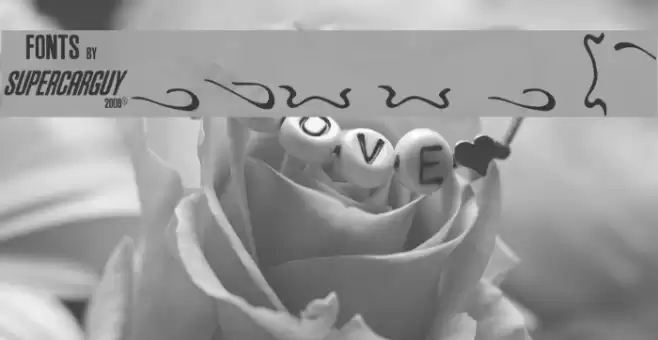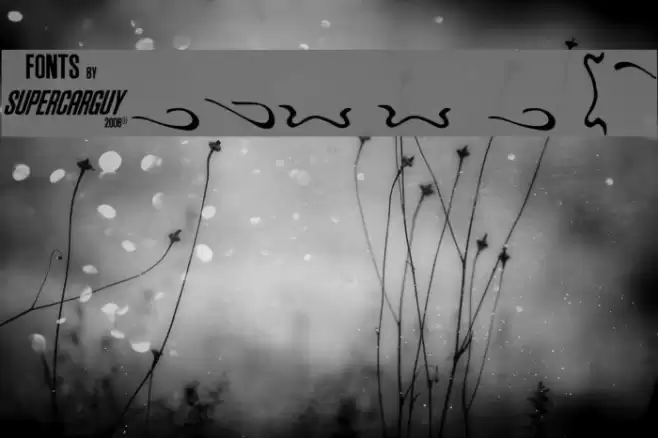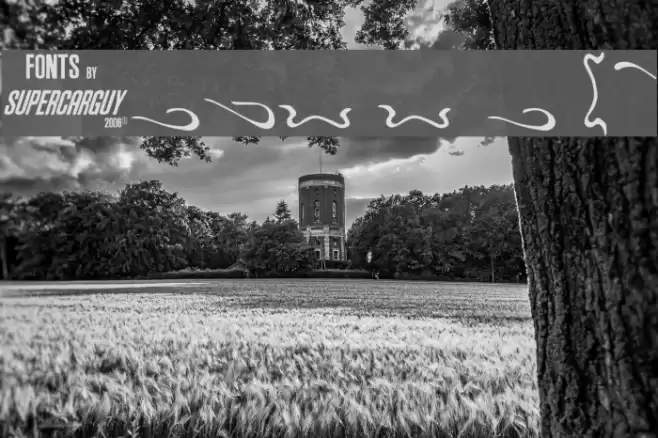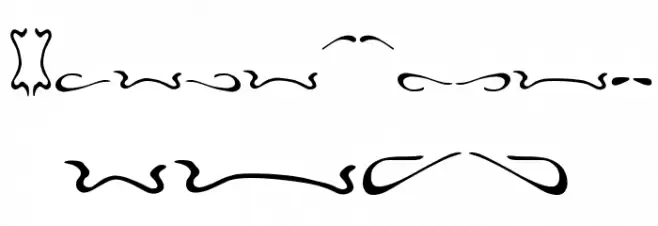
Aero Font One Swash Font
Aero Font One Swash Description
This font features an elaborate and decorative style, characterized by intricate swashes and flourishes that extend from the main letterforms. The design is highly ornamental, making it suitable for artistic and expressive applications. The characters are bold and have a flowing, cursive quality, with each letter seamlessly connecting to the next. The overall appearance is both elegant and dramatic, capturing attention with its unique and sophisticated flair. This font is ideal for projects that require a touch of elegance and creativity, such as invitations, logos, and branding materials.
An elaborate and decorative font with intricate swashes and flourishes from Crazy fonts.
- Proposed Projects: Ideal for invitations, logos, branding, and artistic projects requiring elegance.
- Contrast: High
- Use Case: Logos, Invitations, Artistic Projects